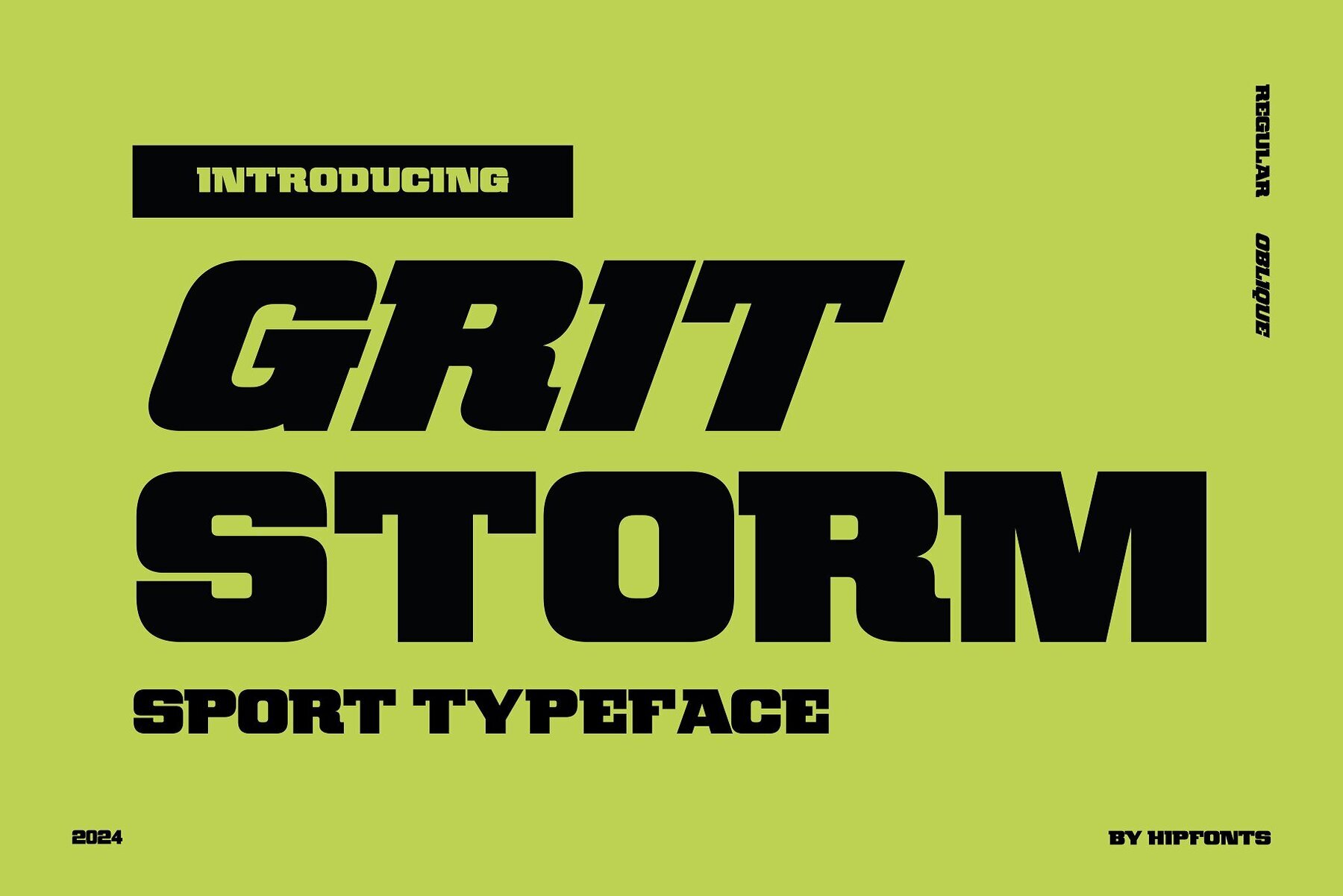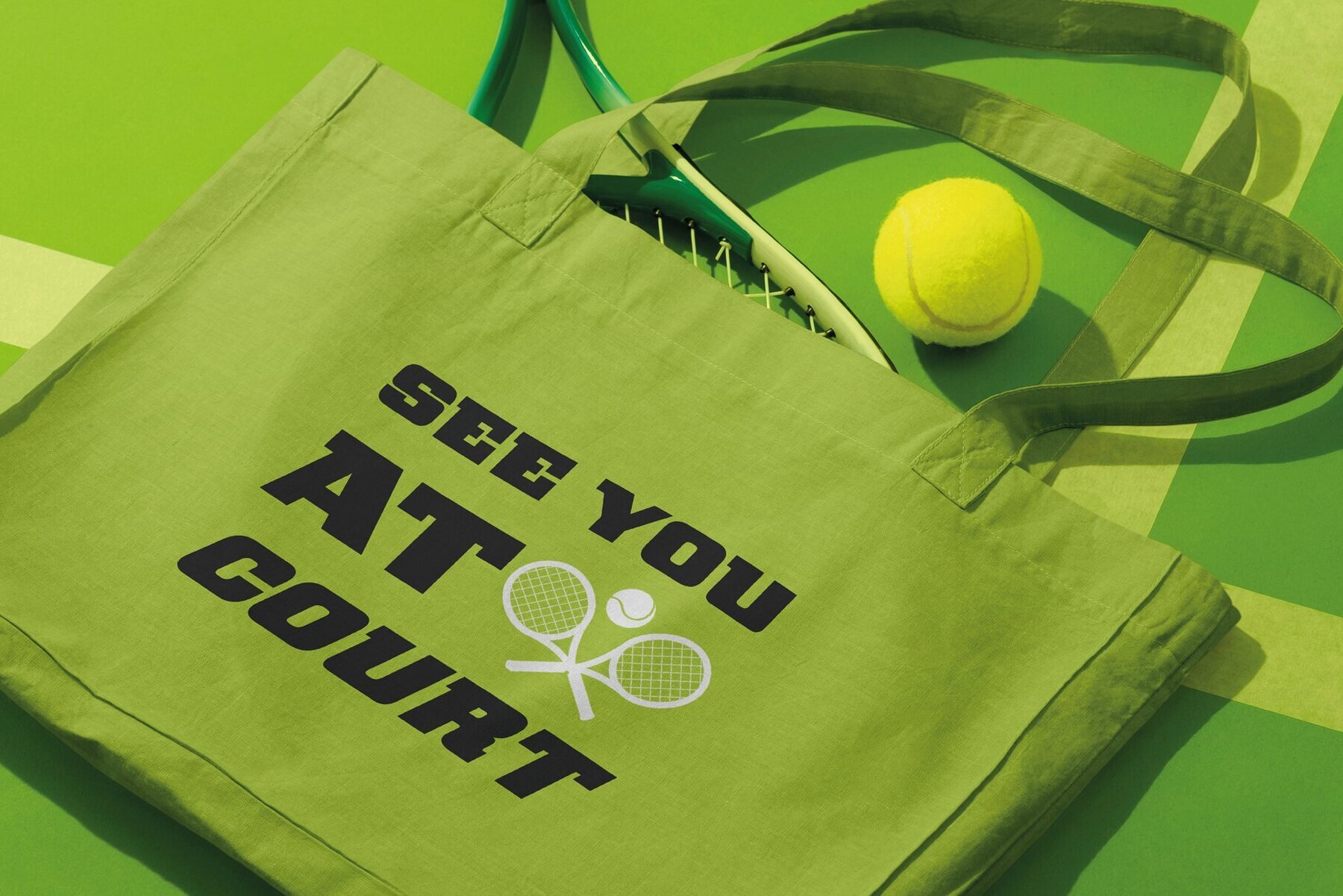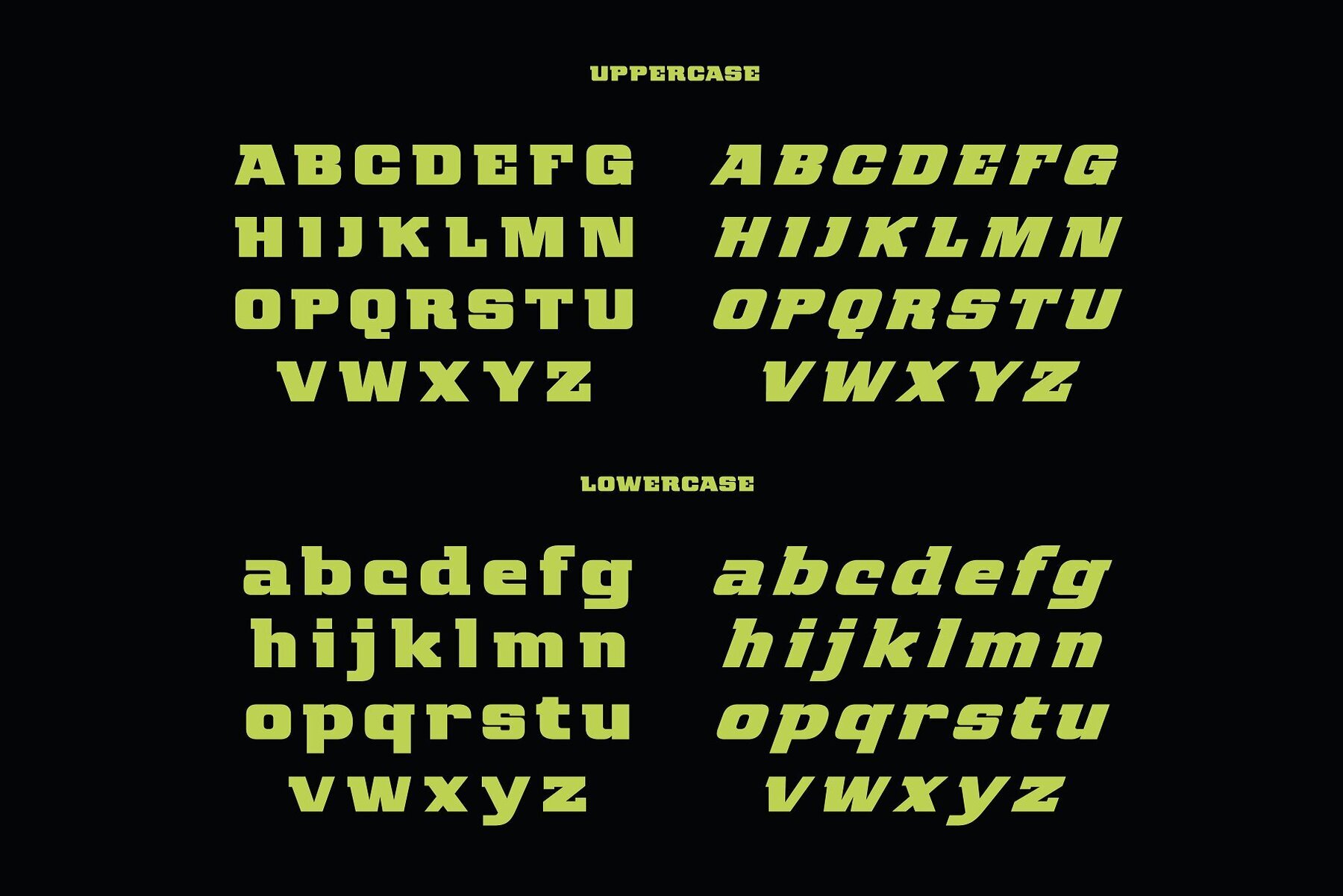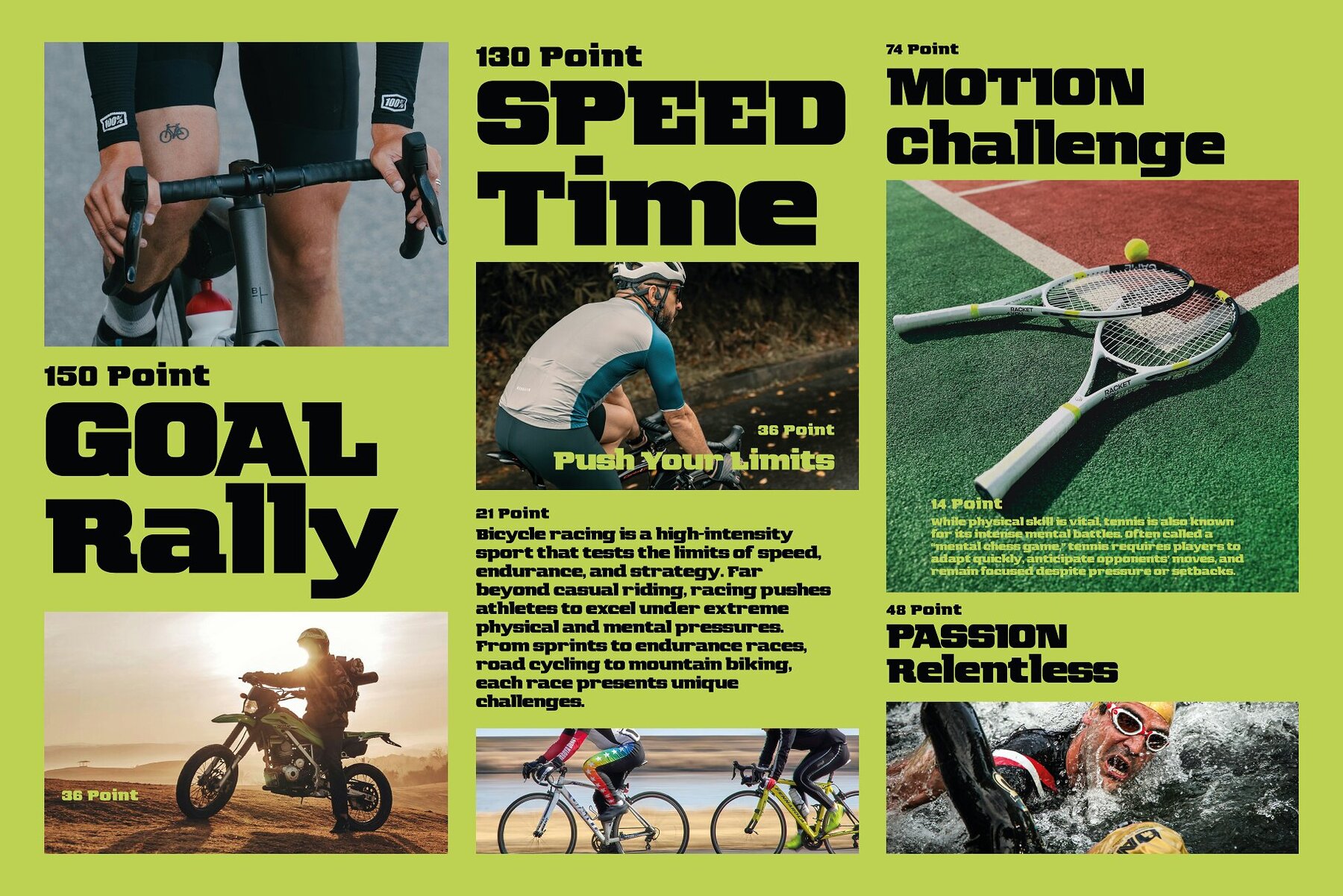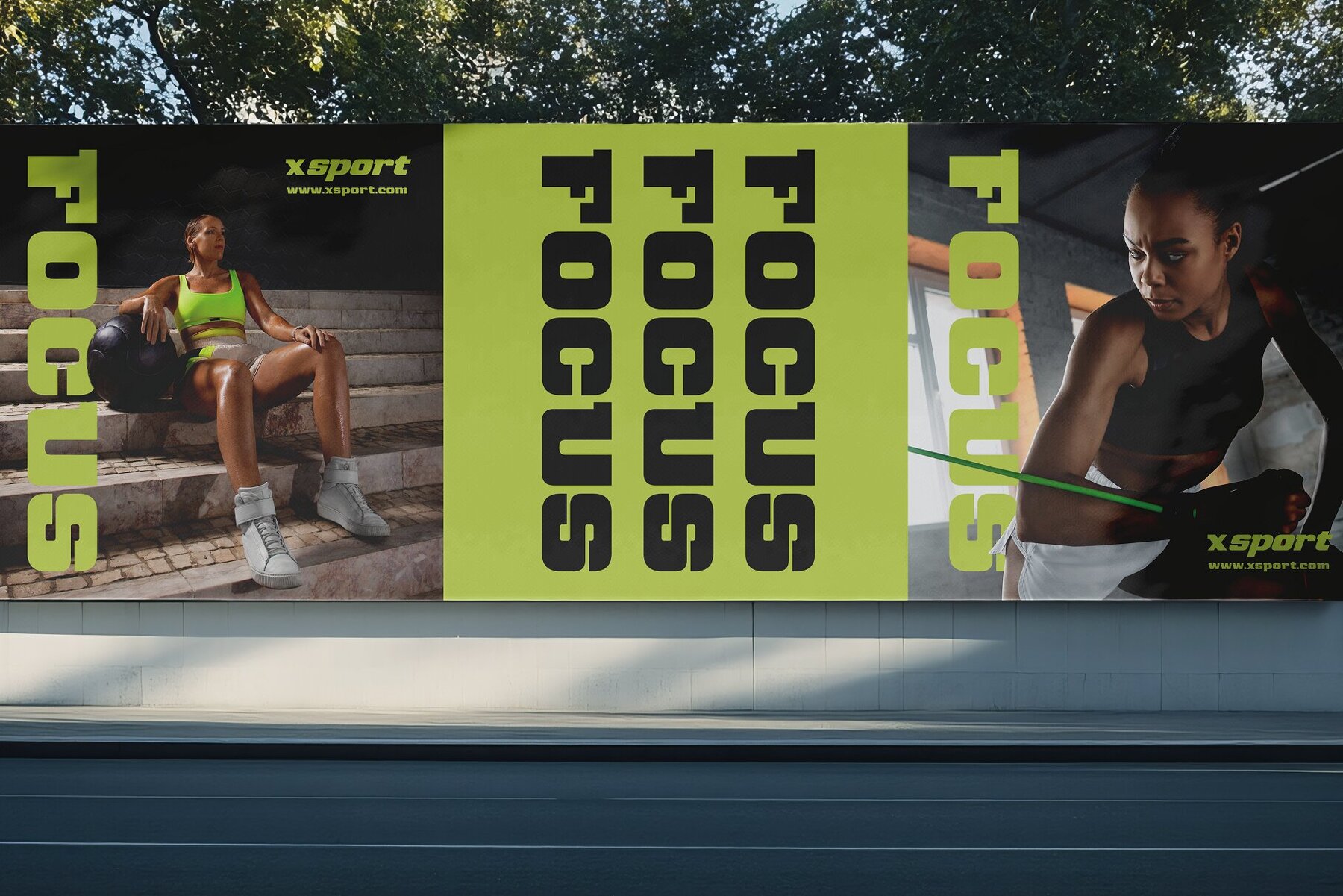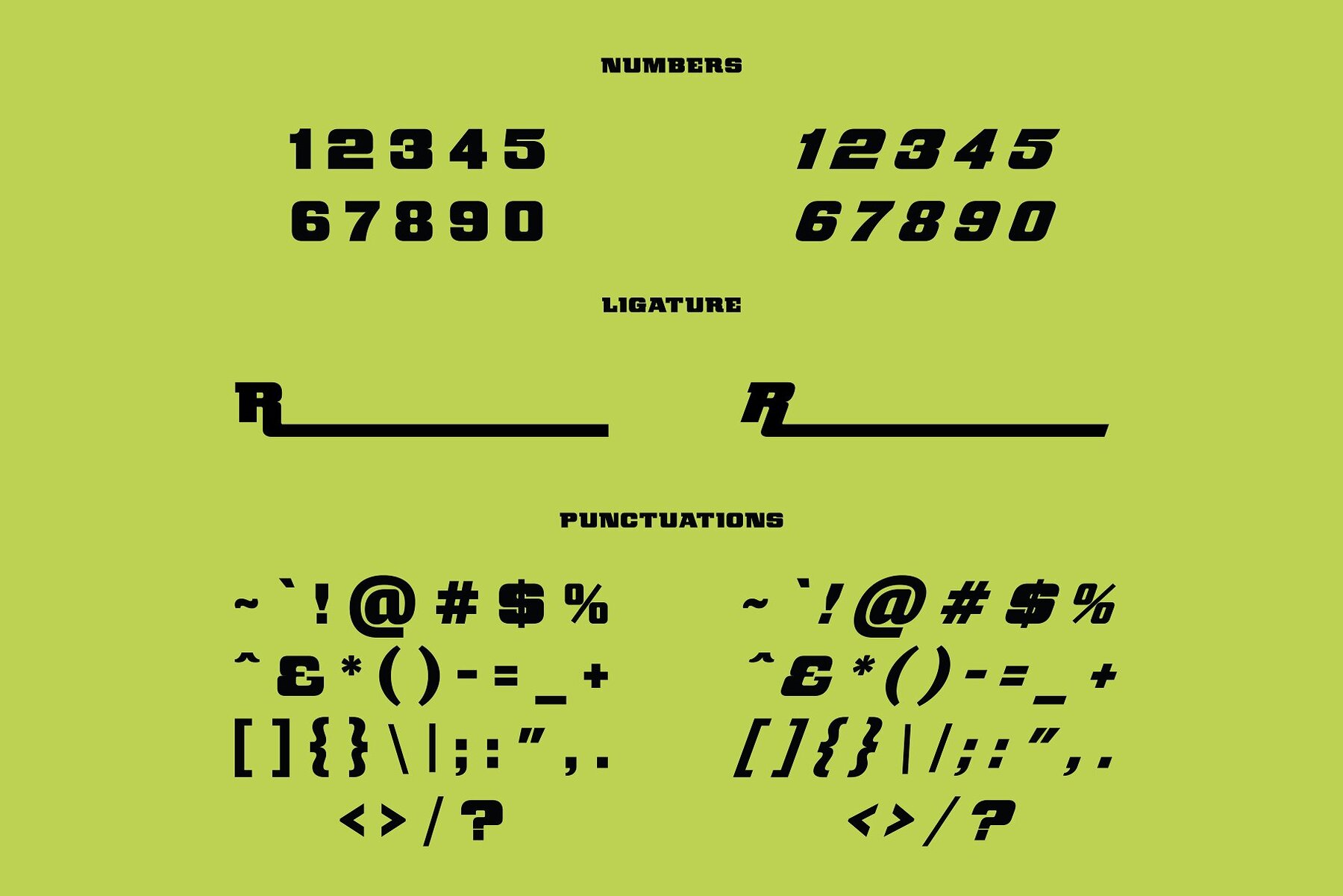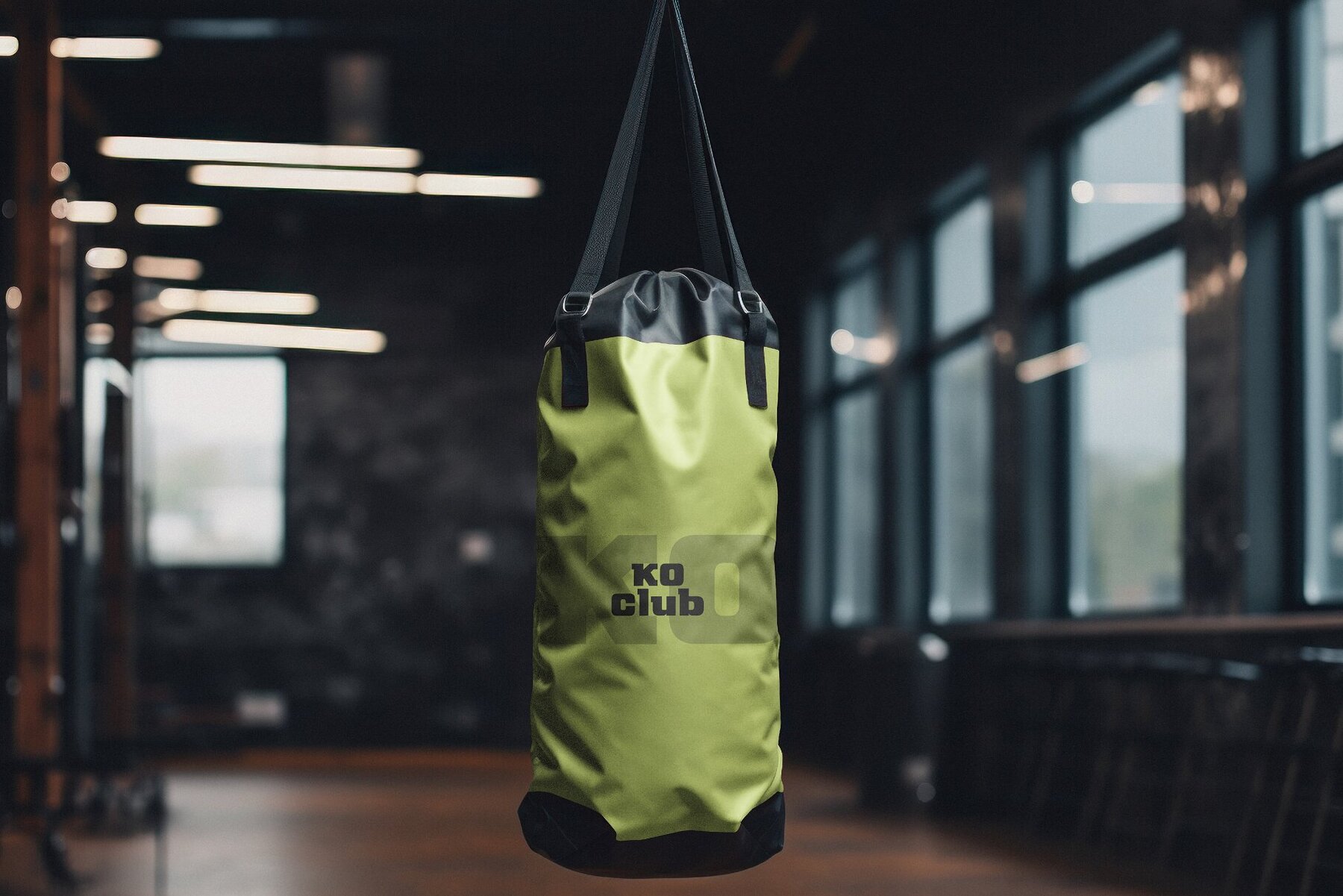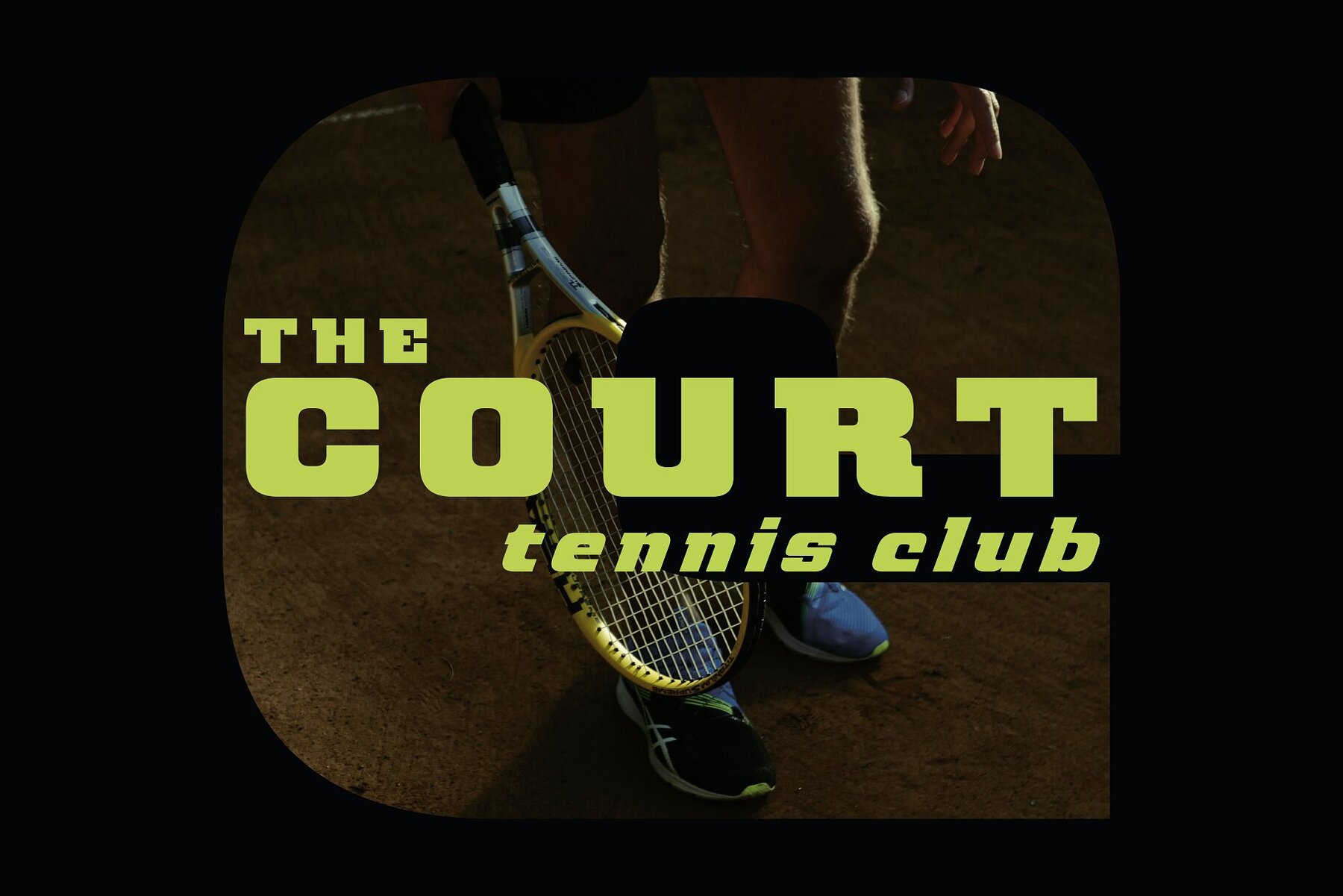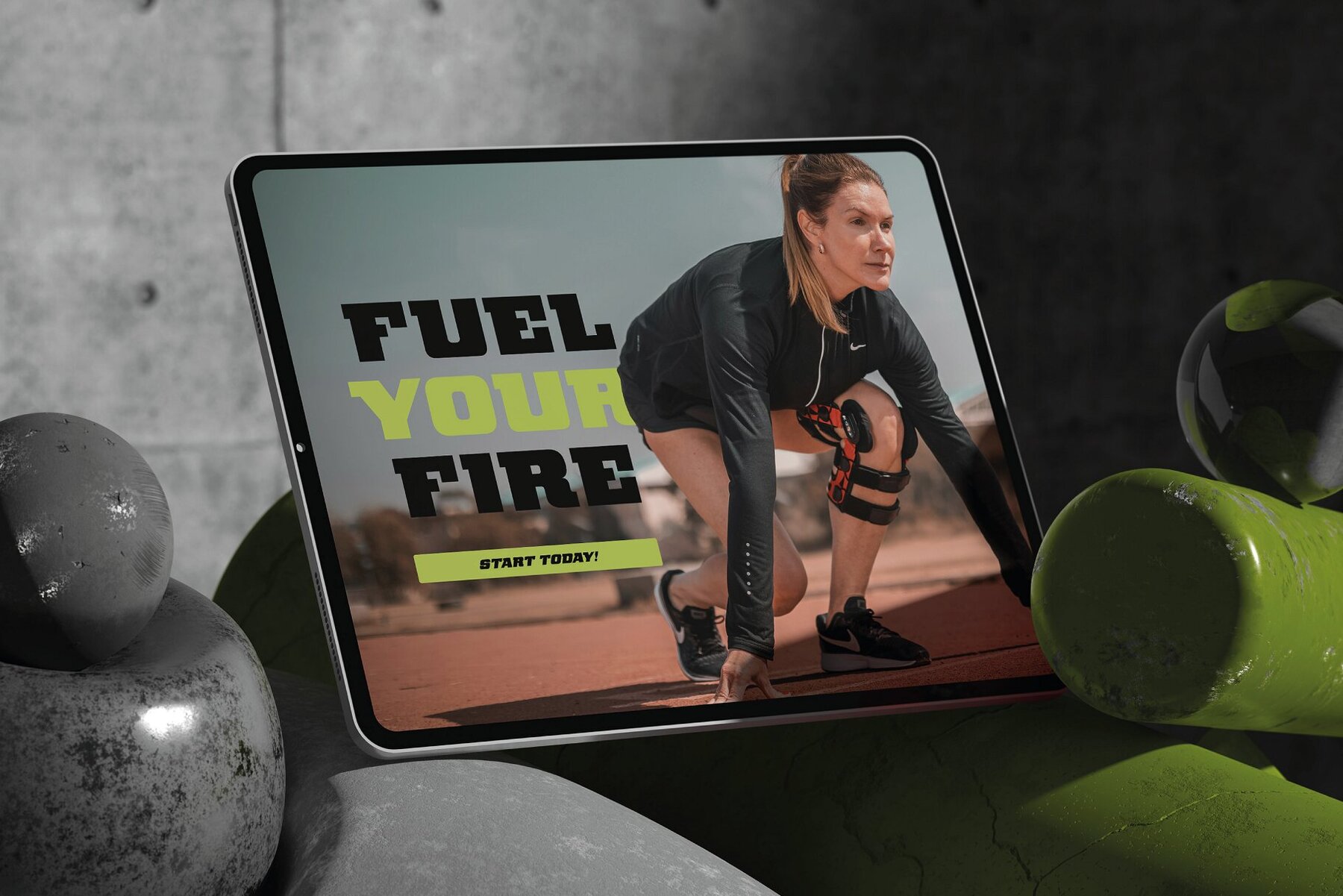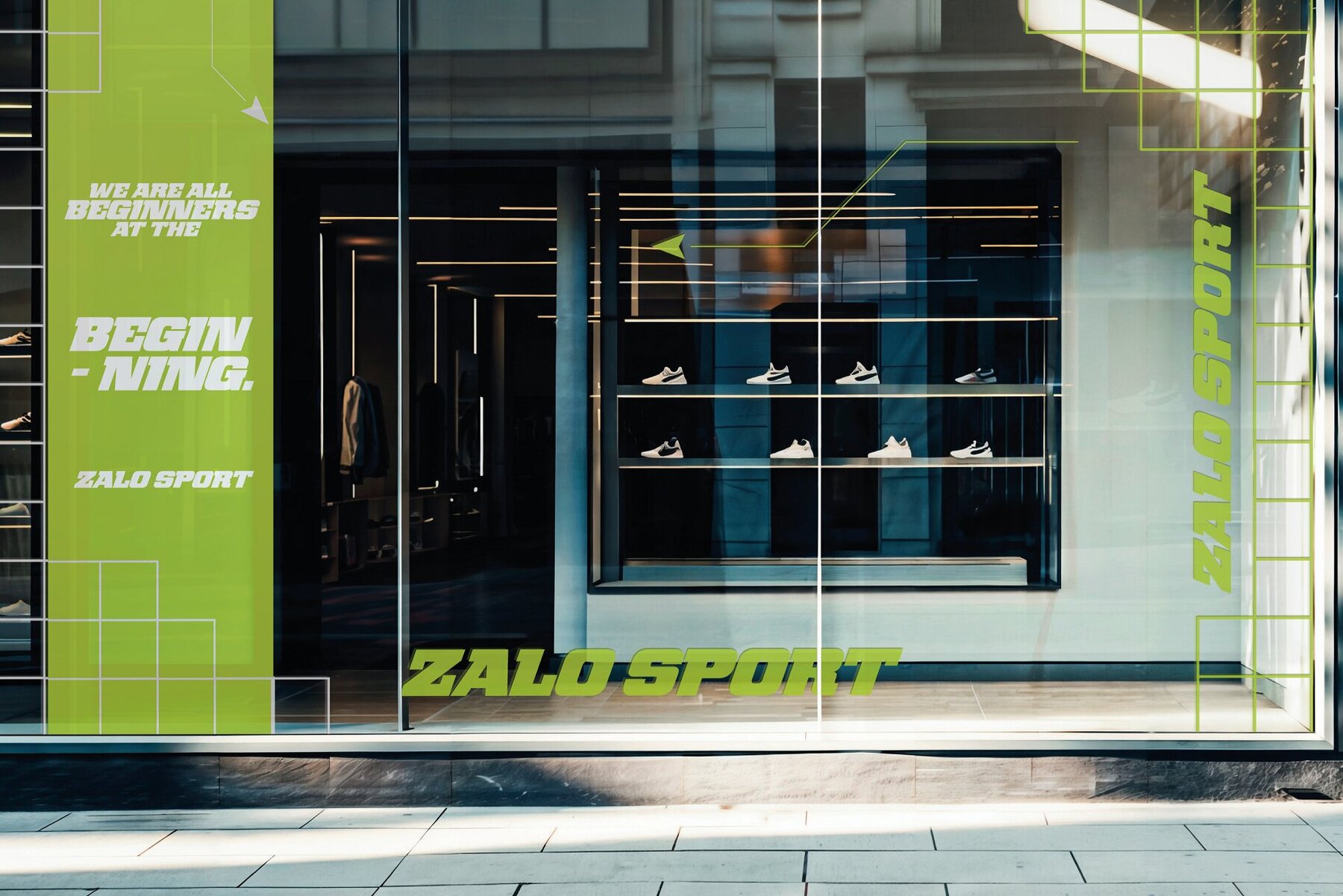
Gritstorm Font
Gritstorm is a powerhouse typeface designed to bring boldness, energy, and attitude to your projects. Ideal for graphic designers seeking a strong, impactful font, Gritstorm features thick, heavyweight letters that draw attention and convey a sense of intensity and grit. This typeface is perfect for sports branding, team jerseys, event posters, and social media graphics, providing a visual punch that captures the spirit of competition.
Whether designing a logo, creating merchandise, or setting type for digital and print ads, Gritstorm ensures your message stands out with its bold presence and athletic vibe. Let your designs proudly showcase determination and strength with this commanding typeface.